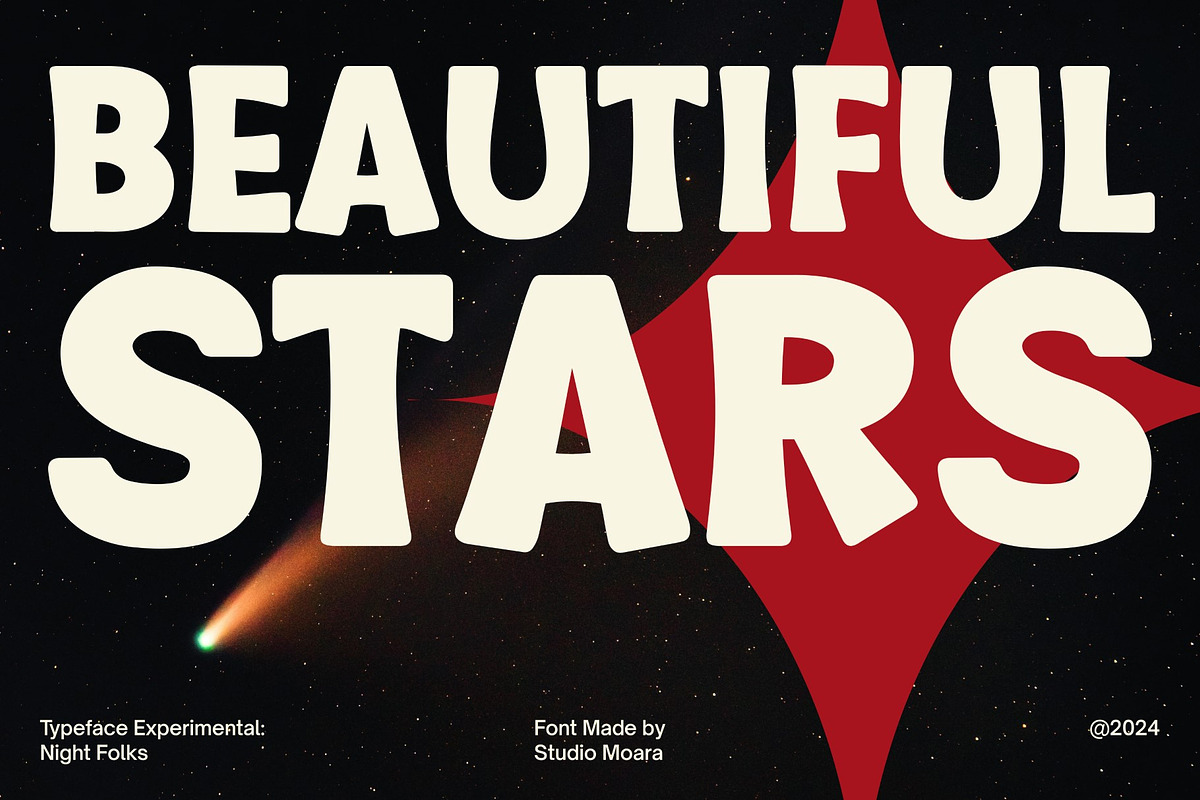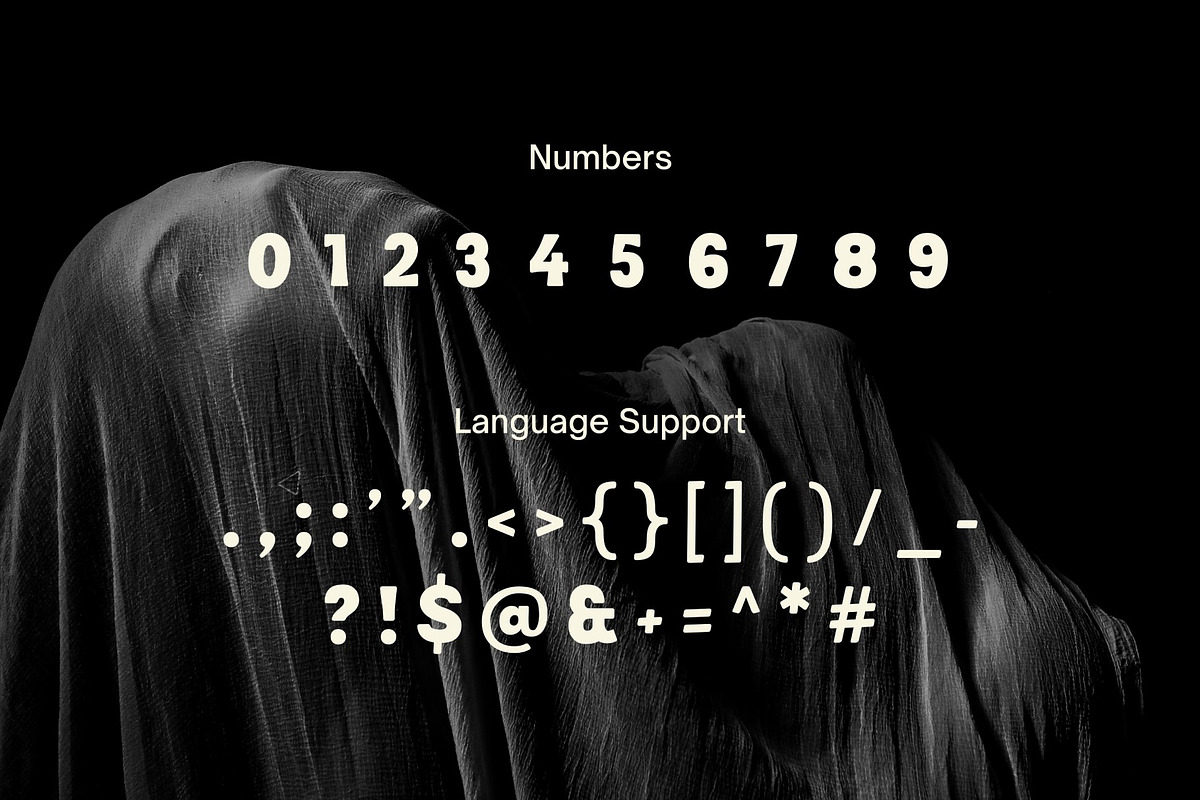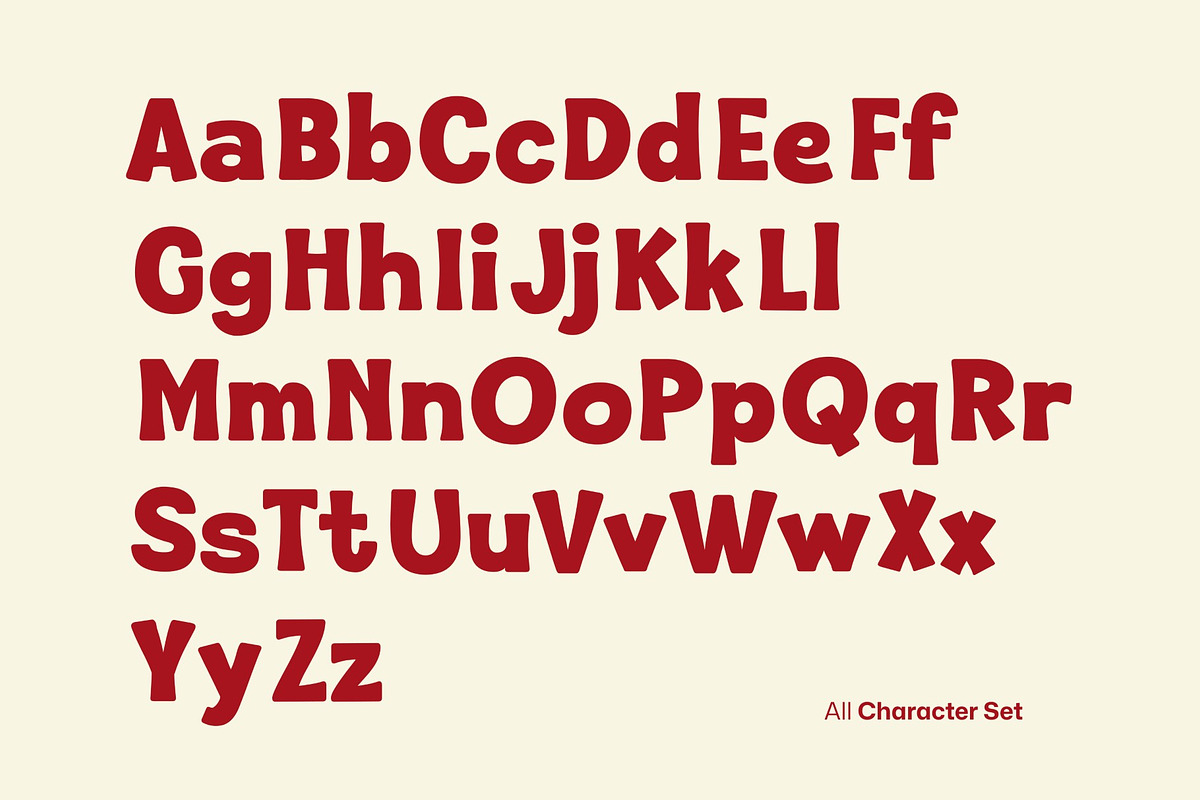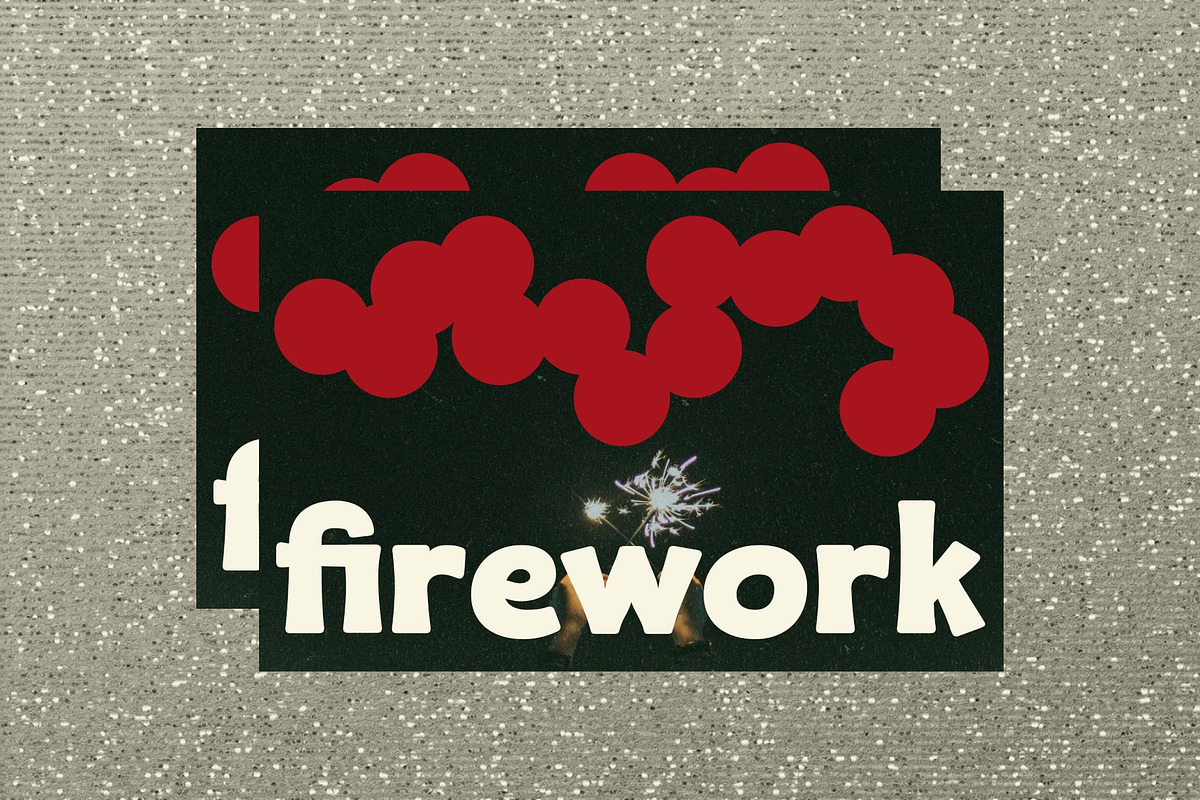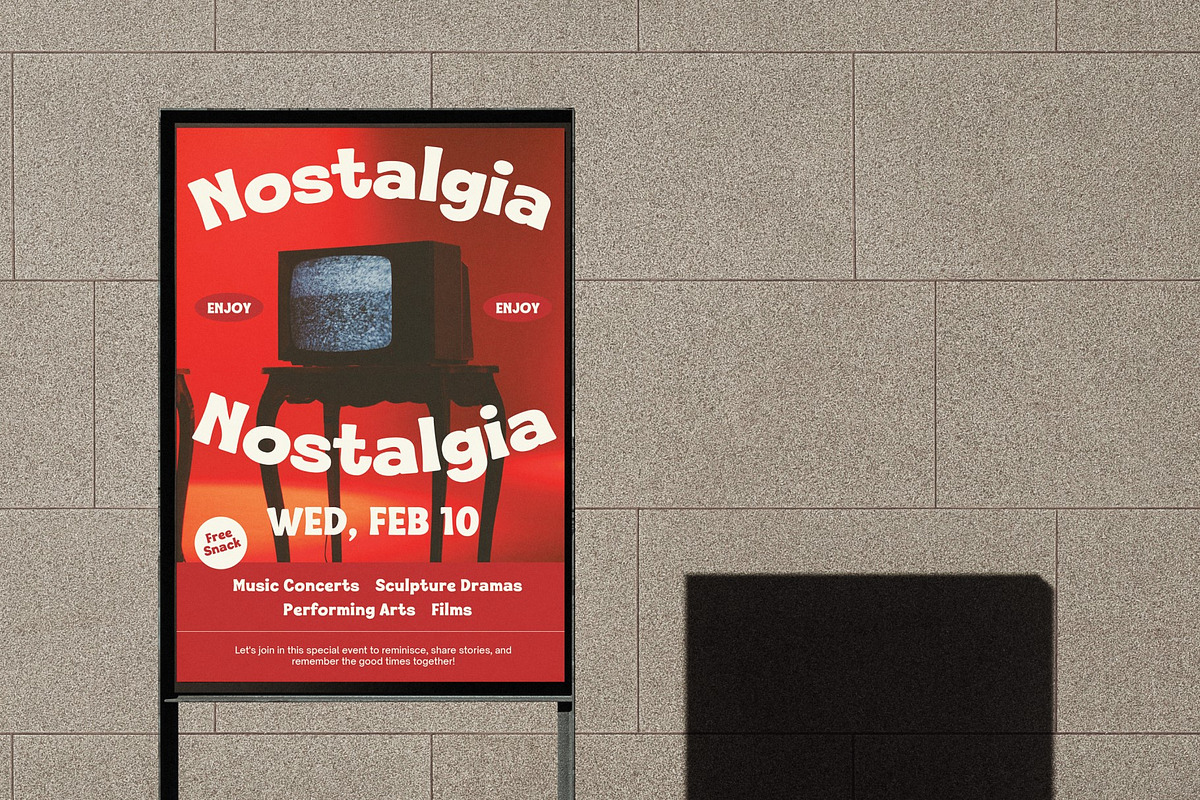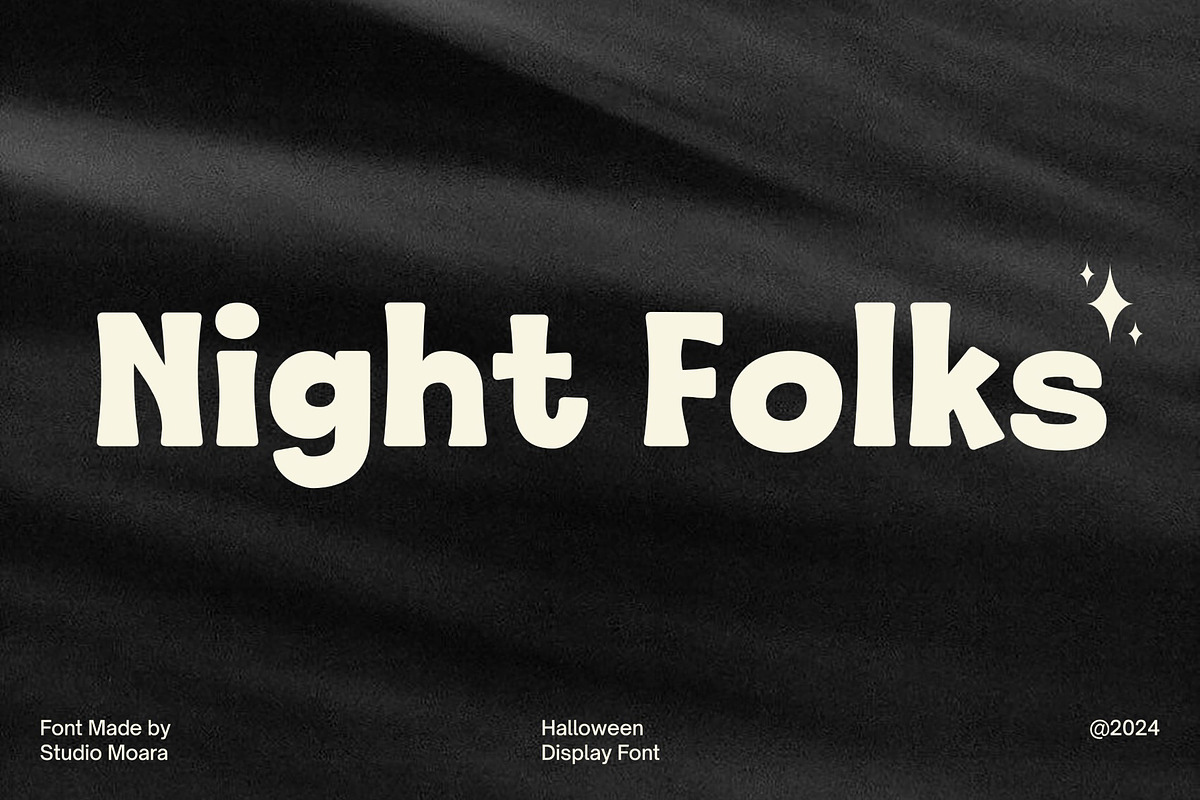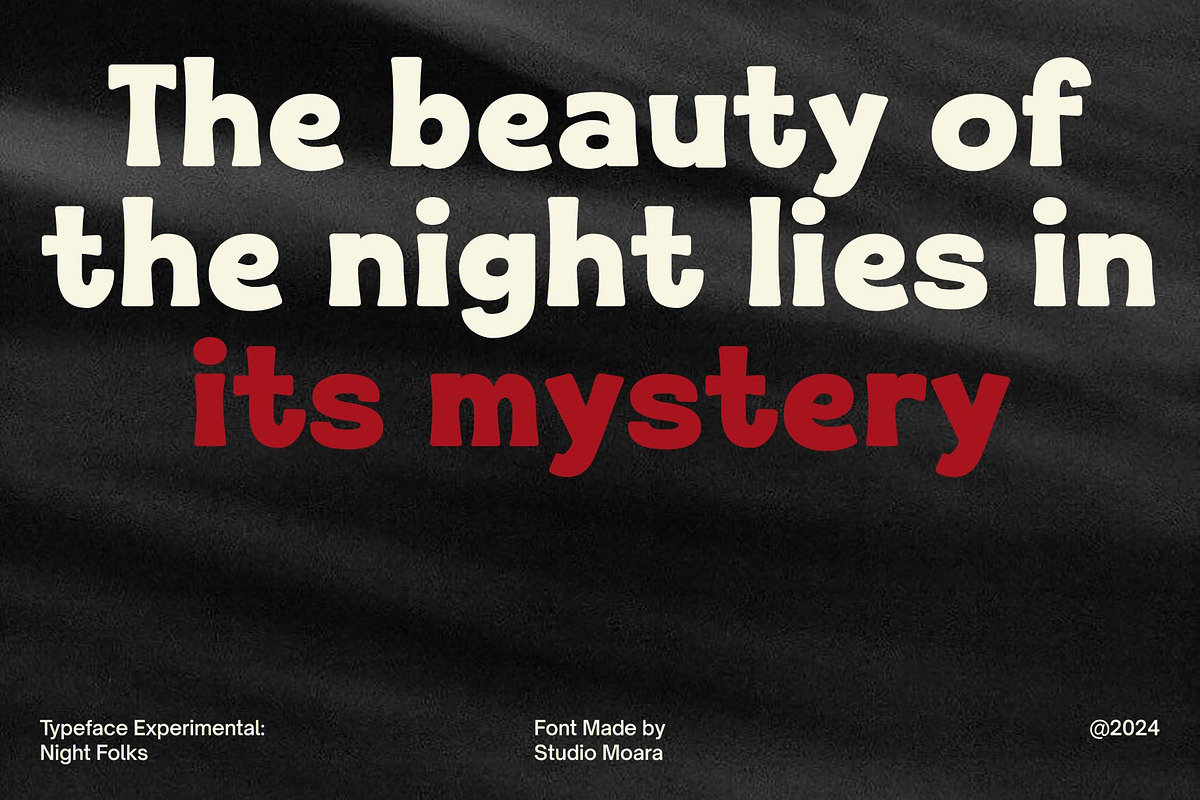
Night Folks - Halloween Display Font
Night Folks is a whimsical and spooky Halloween display font that will add a touch of fun to your projects. Inspired by all things creepy and cute, this font features playful characters and a vibrant color palette. Perfect for crafting festive designs, creating Halloween-themed branding, or adding a touch of spookiness to any project, Night Folks is sure to make a statement. With its unique and eye-catching style, this font is perfect for Halloween parties, costumes, and more.